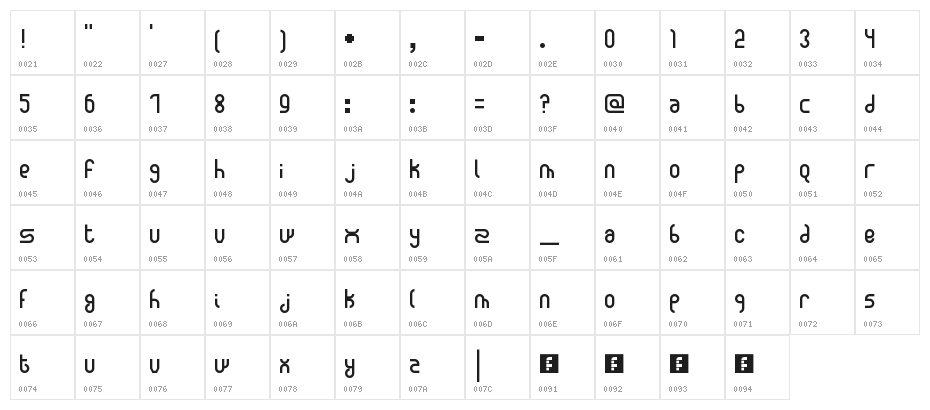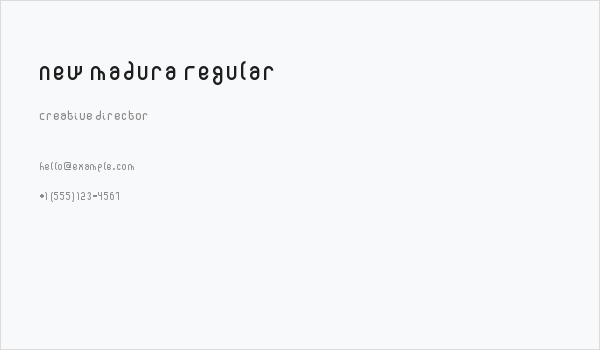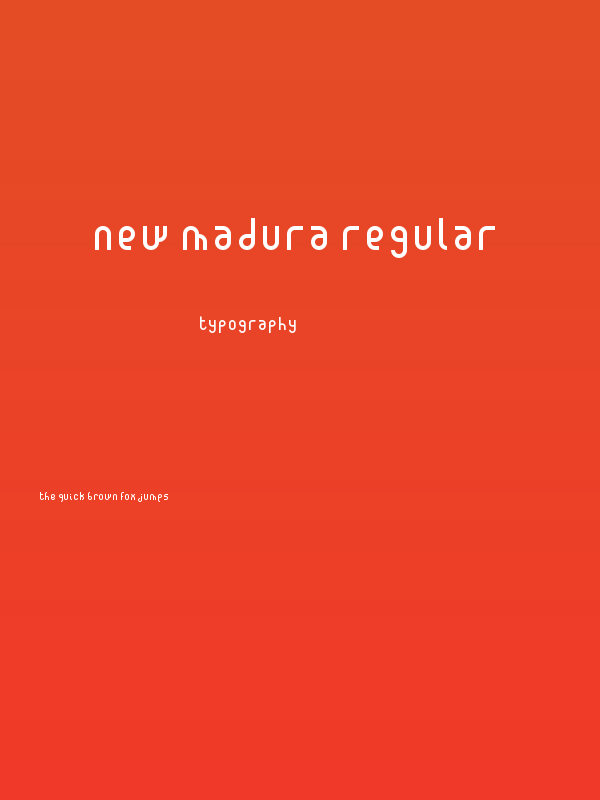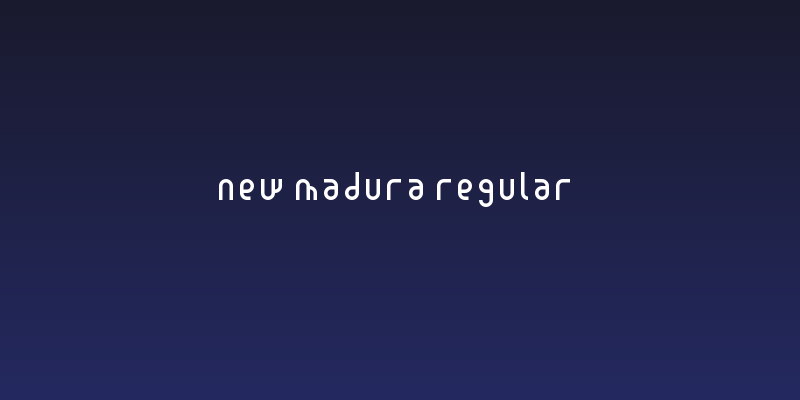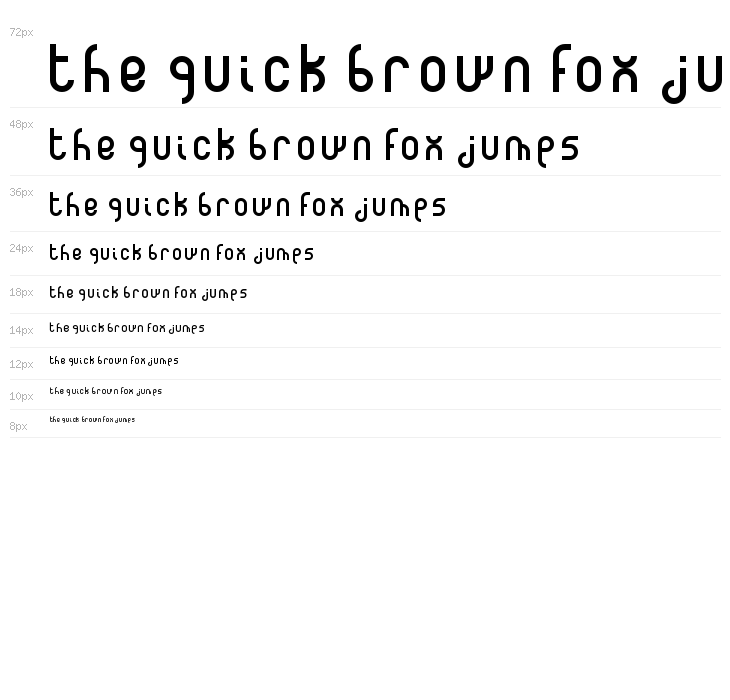
New Madura Regular Font
New Madura Regular Description
This font features a unique geometric style with rounded edges and a modern aesthetic. The characters are distinct with a consistent stroke width, giving it a clean and uniform appearance. The lowercase letters have a playful, yet structured form, while the uppercase maintains a strong presence. The numerals are clear and easy to read, complementing the overall design. Special characters are creatively integrated, adding to the font's versatility. Its contemporary look makes it suitable for a variety of design applications.
| Use Case | Headlines, Logos, Digital Media |
| Proposed Projects | Ideal for branding, advertising, digital media, and modern web design projects. |